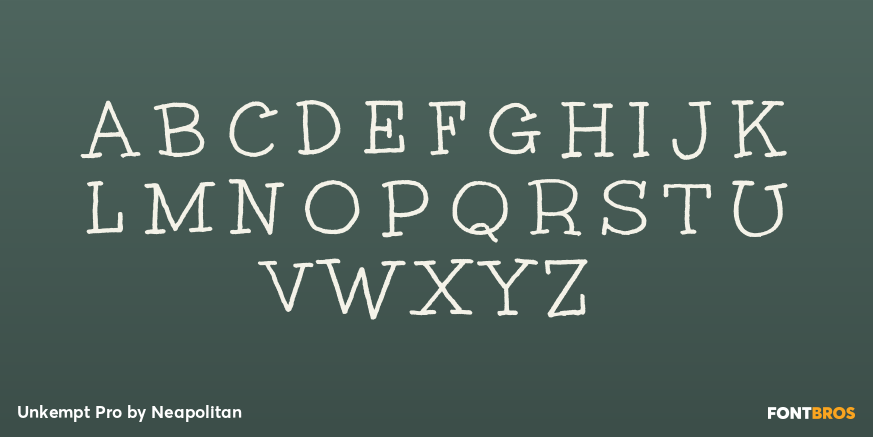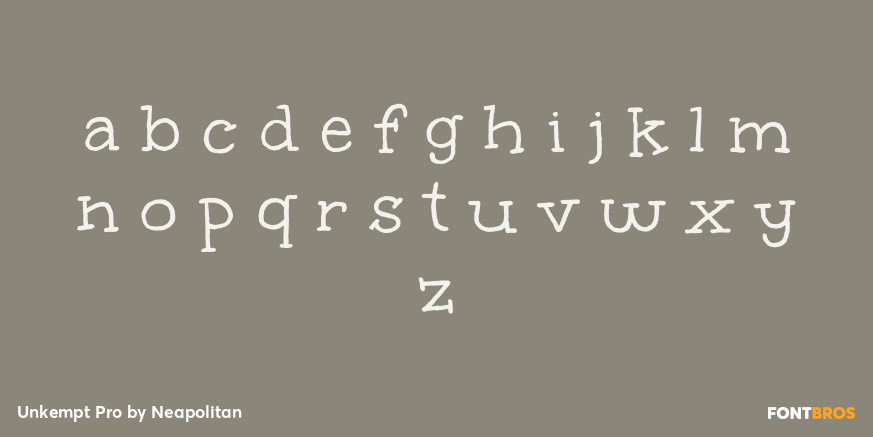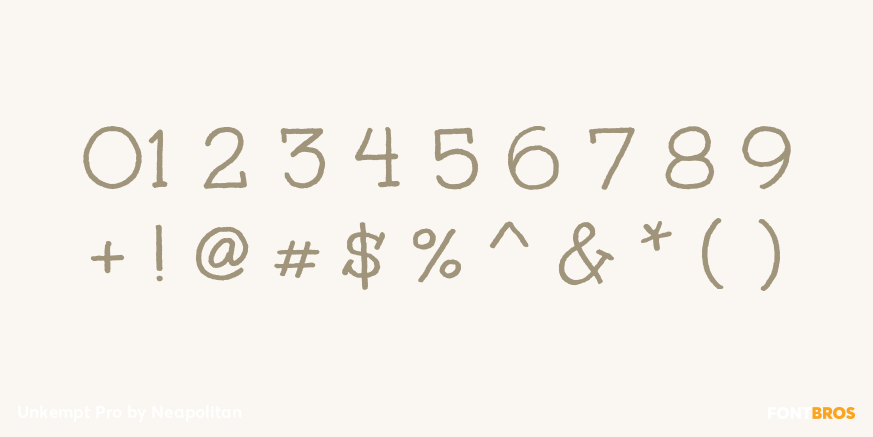
Unkempt Pro
Font Family by Neapolitan
unkempt /??n?kem(p)t/ adj. 1. lacking in order, neatness, and often cleanliness. Font designer Squid may be a bit disorderly but that didn't keep him from hand-lettering this off-kilter gem just for you. Unkempt is definitely different than your traditional regimented font but, it's hardly dirty! In fact, you can download it in a nifty little package that's never been touched by human hands. And it's fun! Get it!